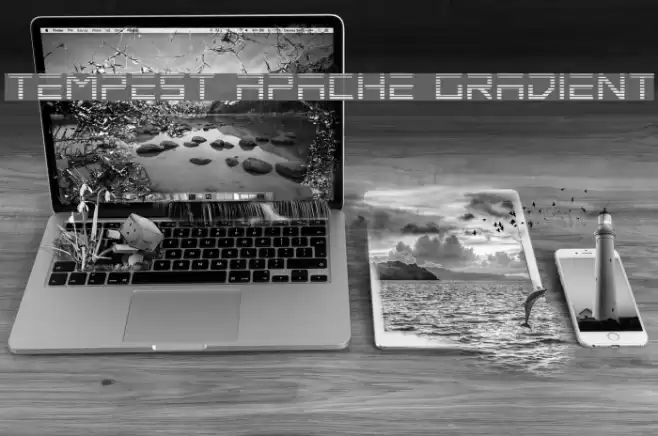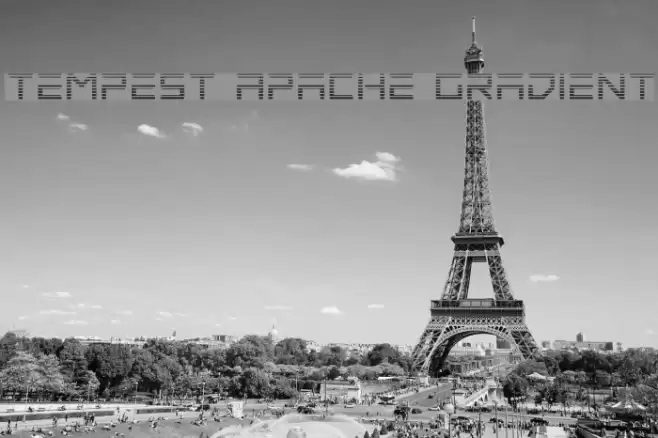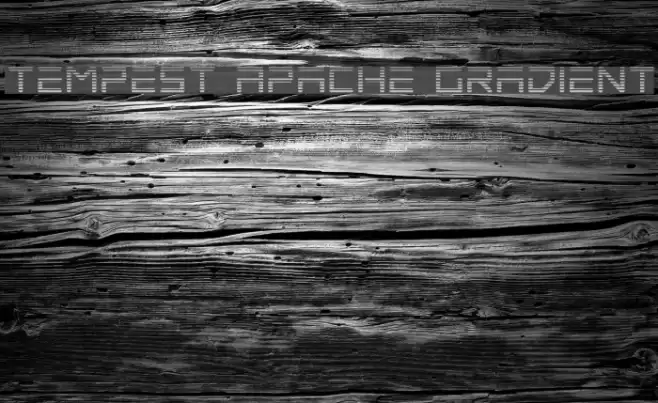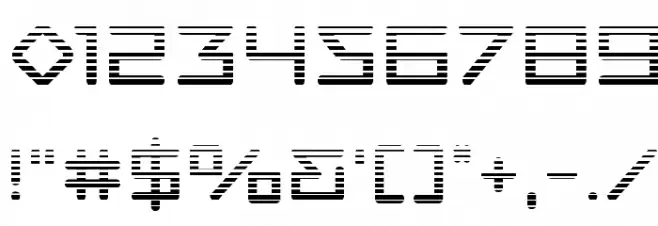
Tempest Apache Gradient Font
Tempest Apache Gradient Description
This font features a distinctive, futuristic design characterized by horizontal lines that create a gradient effect within each character. The geometric shapes and sharp angles give it a modern and digital appearance, reminiscent of early computer graphics or sci-fi themes. The uppercase and lowercase letters maintain a consistent style, with numbers and special characters following the same design principles. The font's unique structure makes it stand out, offering a bold visual impact.
A futuristic, gradient-lined font with a digital, sci-fi aesthetic from Uncategorized fonts.
- Proposed Projects: Ideal for tech-related branding, video game titles, sci-fi movie posters, or any project requiring a modern, digital look.